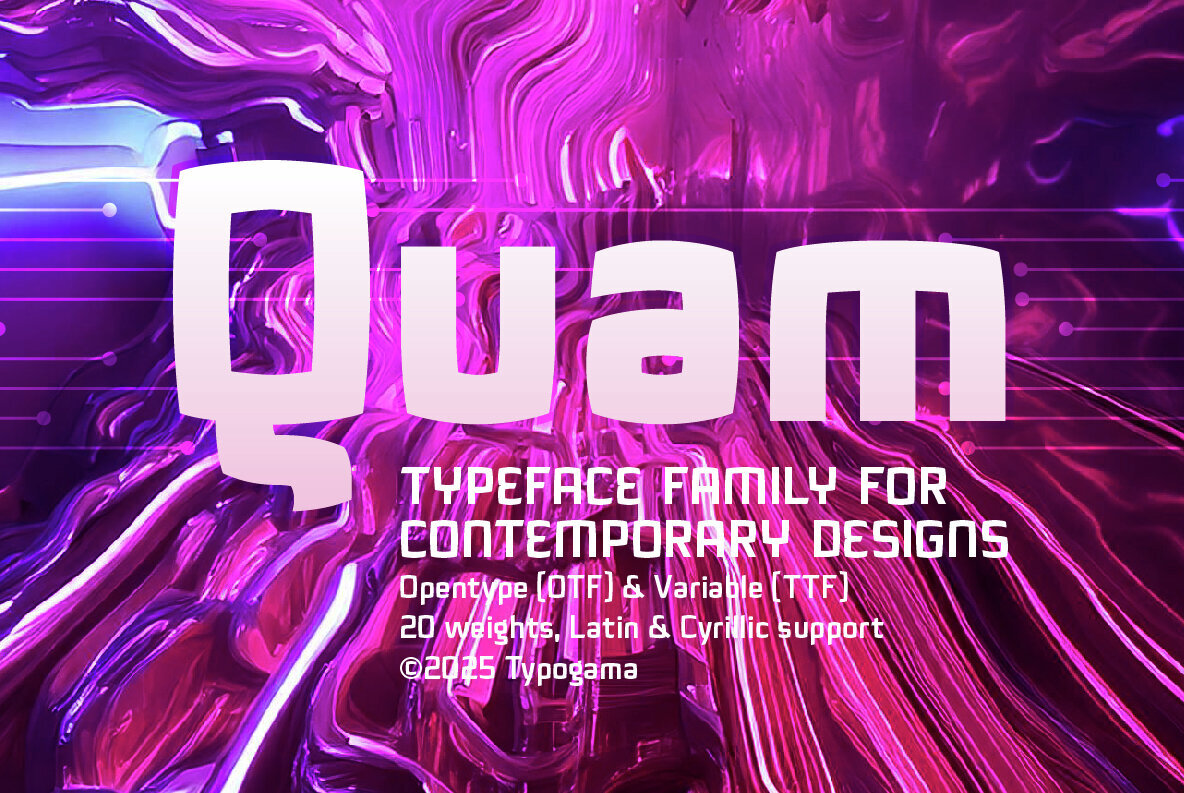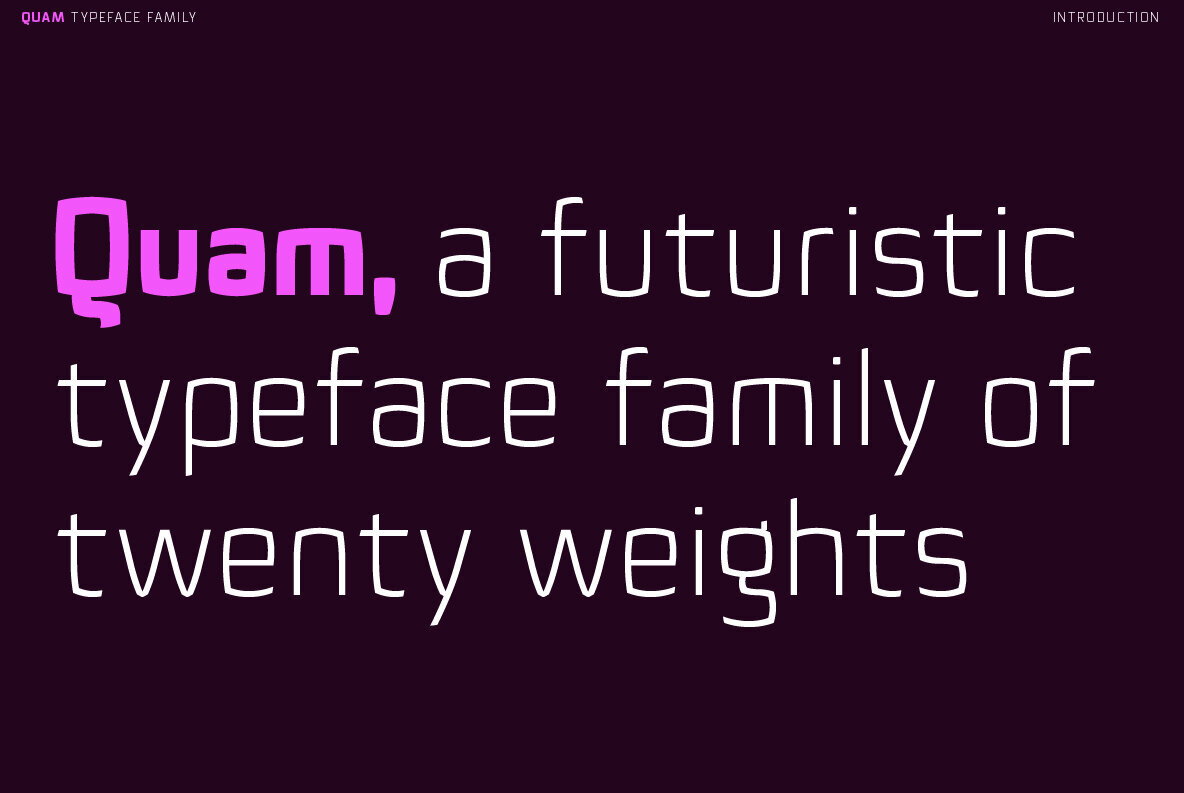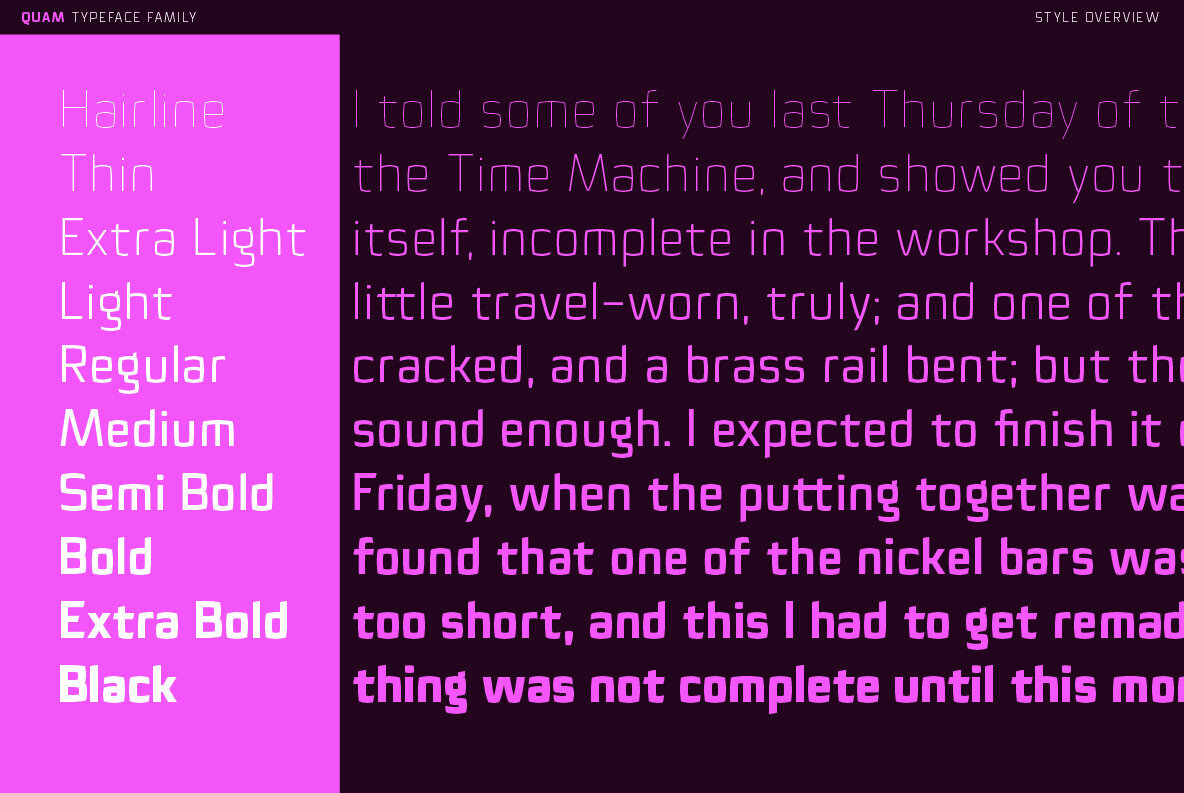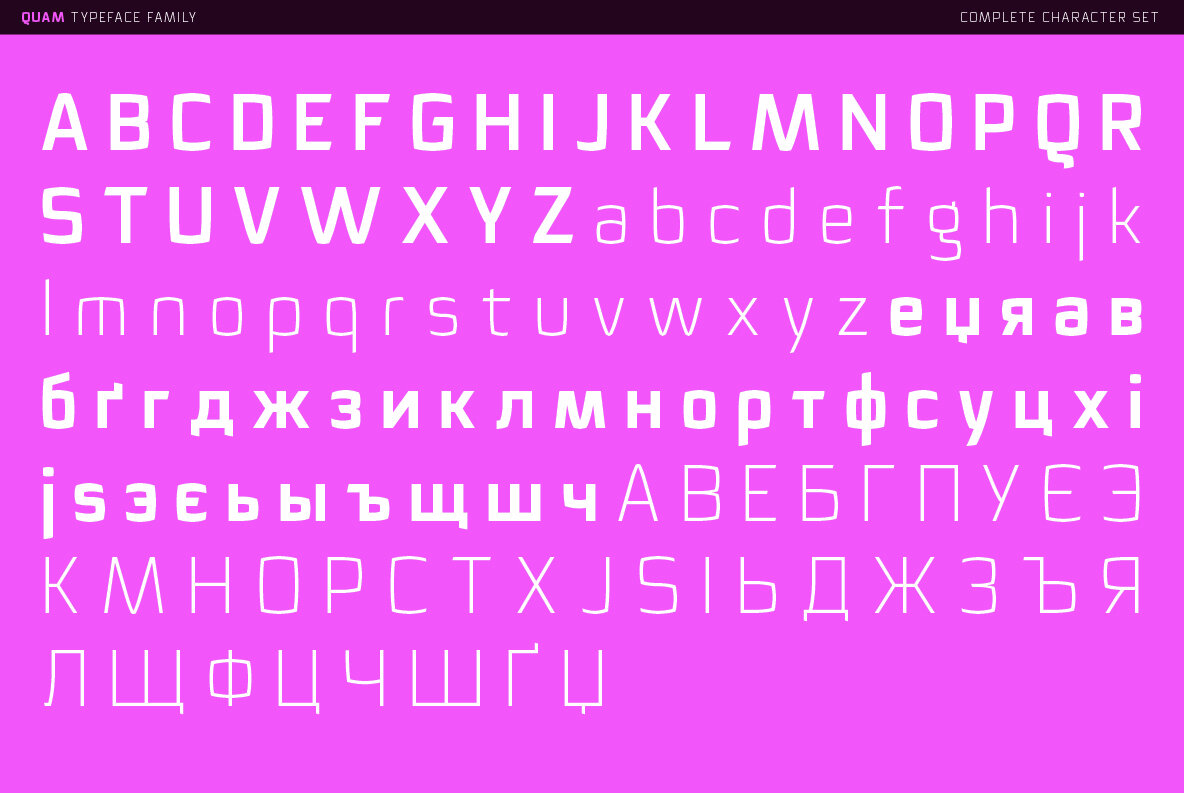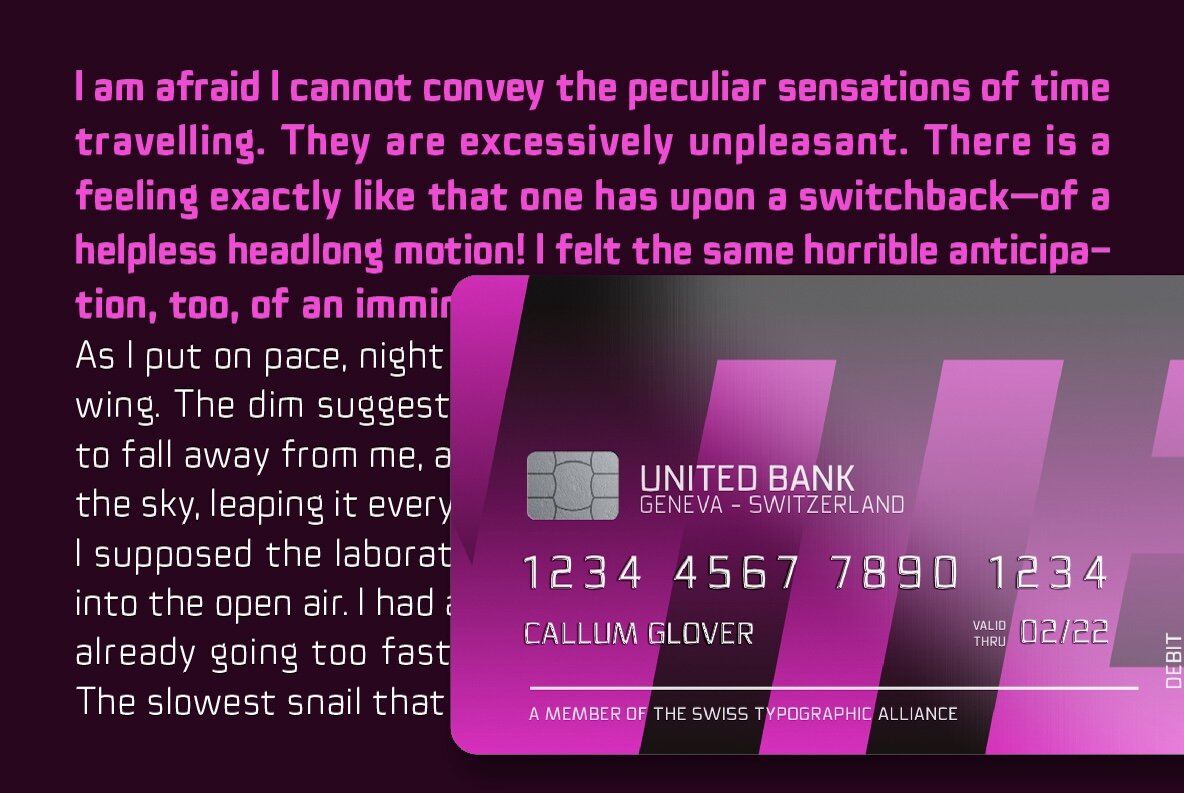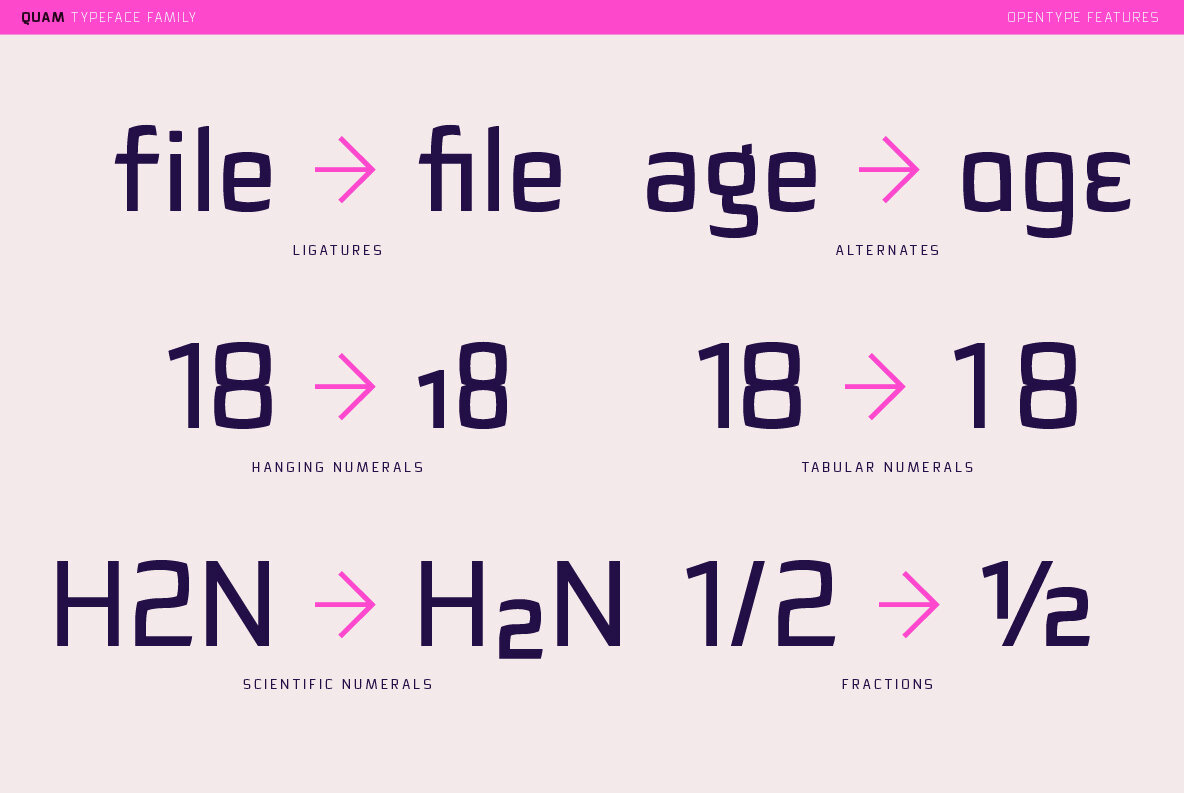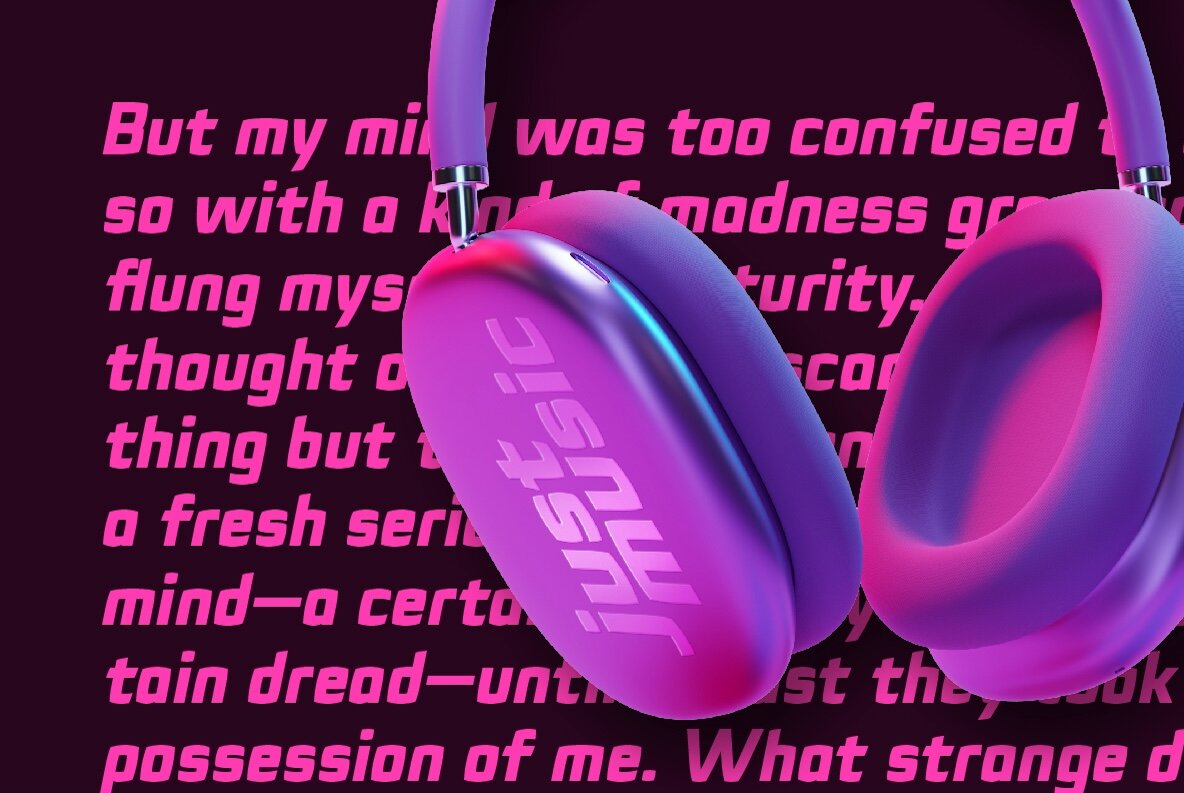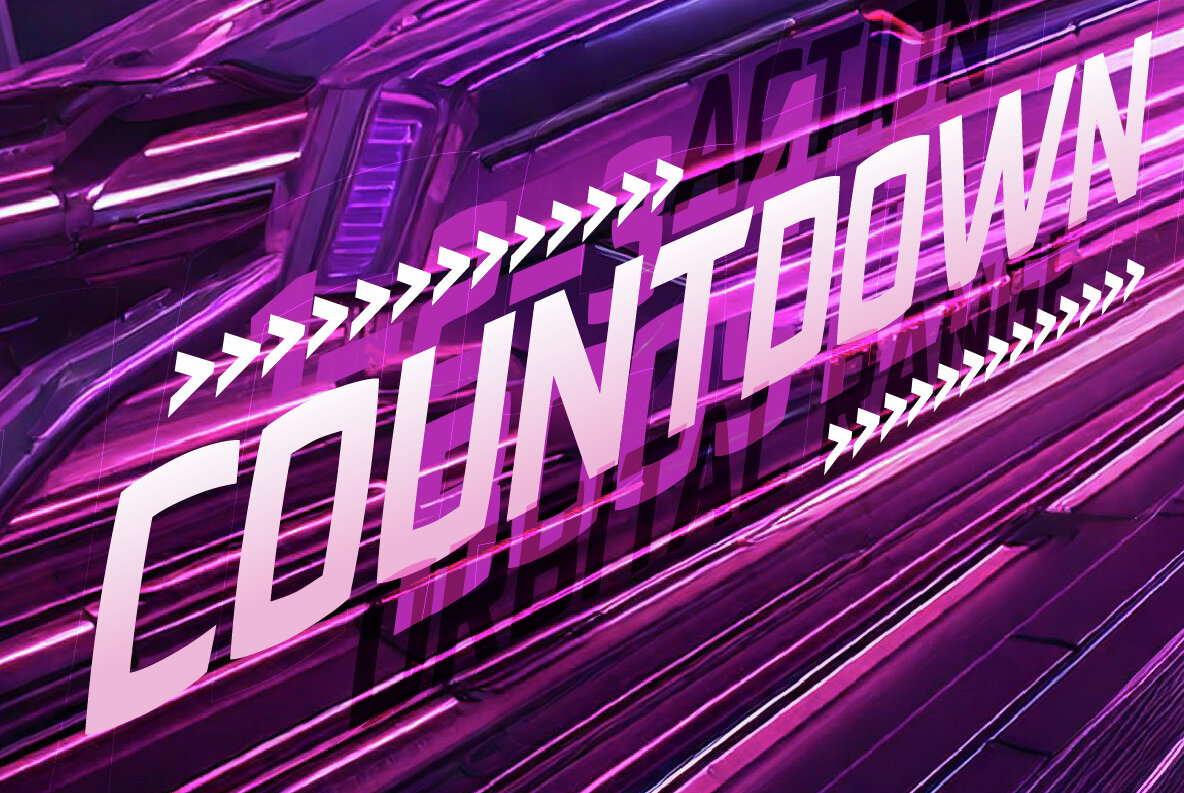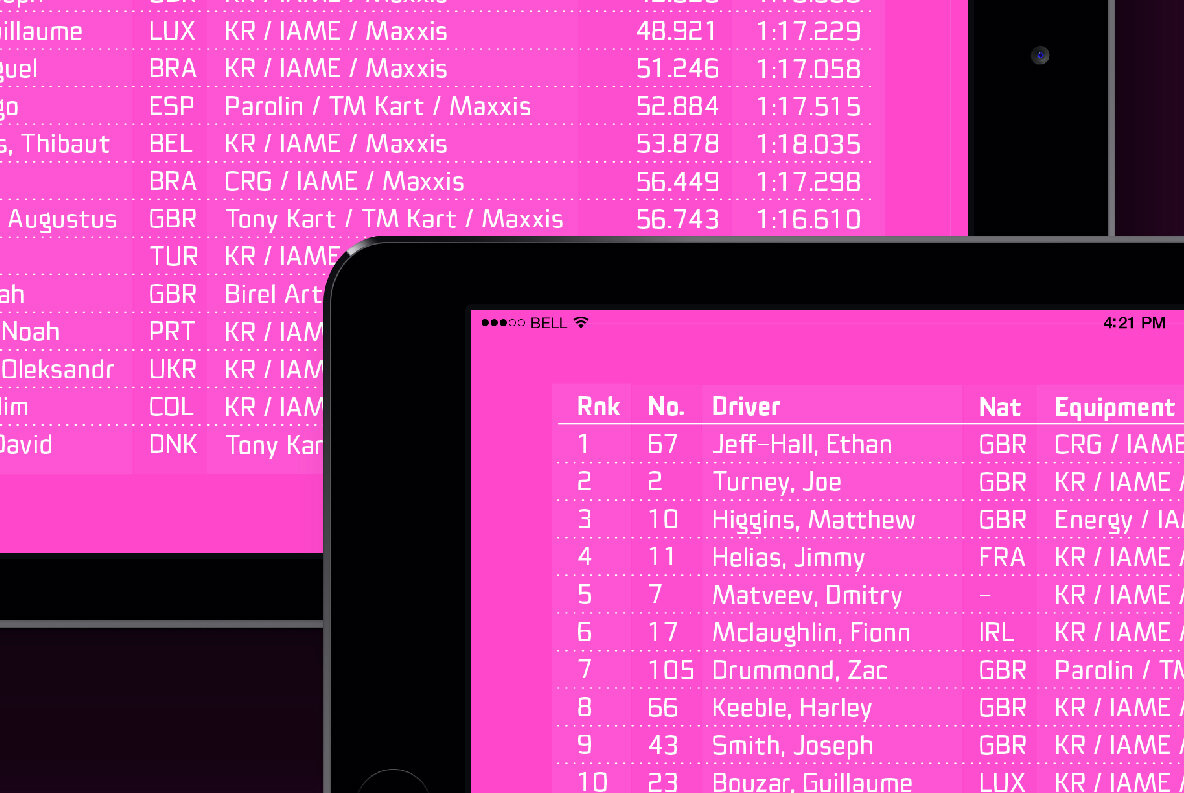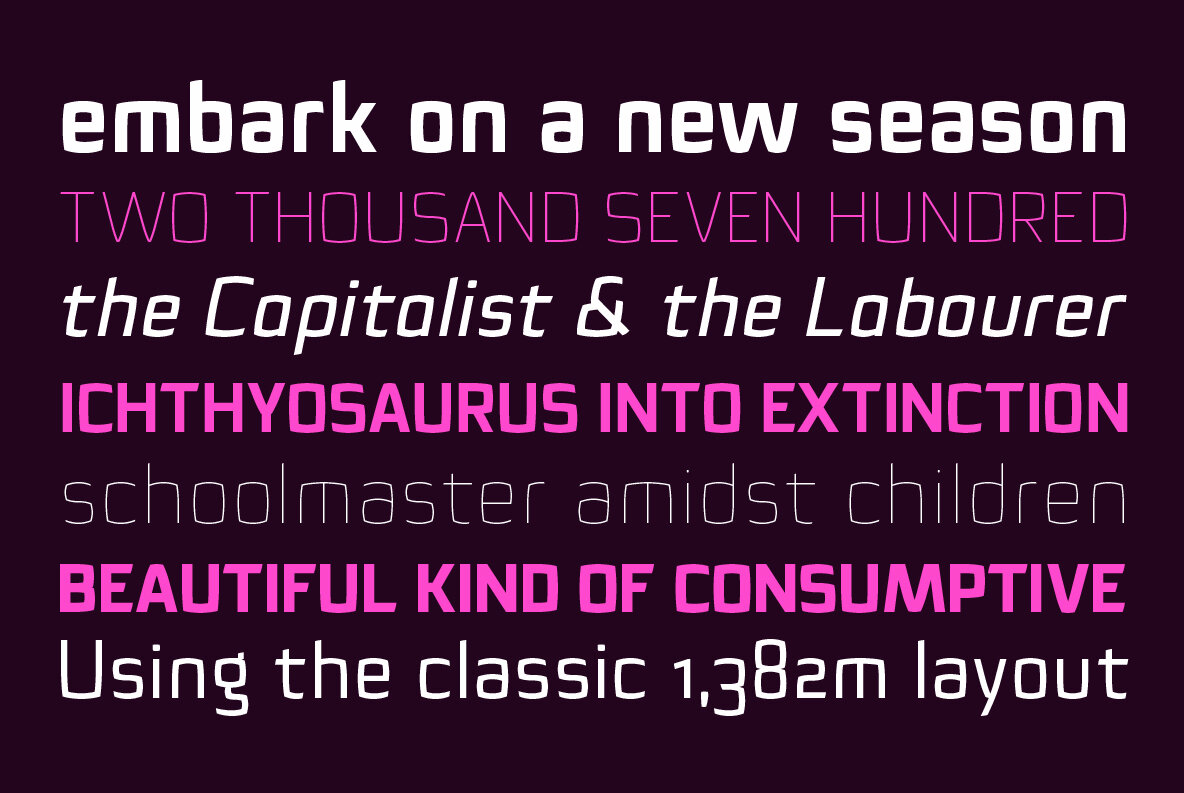
Quam Font
Inspired by a futuristic vision of the world, Quam is a typeface family that aims to bring impact and a unique voice to your content. It blends a modular approach with a humanist vision that is both contemporary yet retaining certain classical hints Whether employed in headlines, logos or titles that highlight the particular forms or in a smaller context conveying a longer passage of text, it will provide a solid form and legible solution. With a range of Openype features and a wide language support that includes Cyrillic, Quam aims to adapt and blend to the requirement of all users and applications. Quam is available as static, Opentype weights (OTF) or as a single Opentype Variable (TTFVAR) font. Language Support: ISO 1, ISO 2, ISO 3, ISO 4, ISO 5
- Extended the weight range, the family now contains 20 weights (8 before)
- Extended the character set to include extended Latin.
- Extended the range of numerals to include lining (default), hanging & scientific forms.
- Expanded the Opentype features to cover ligatures, numerals & Fractions